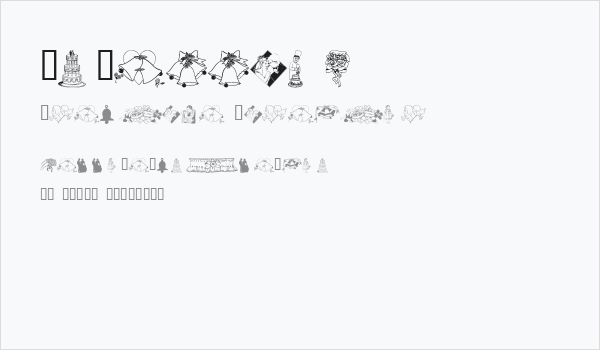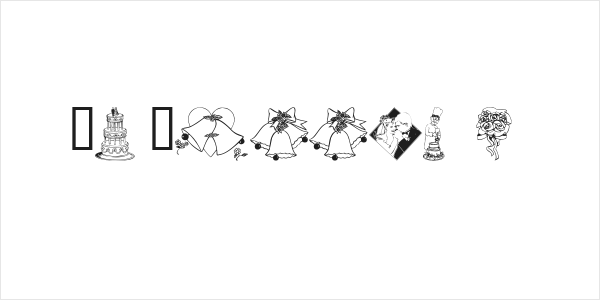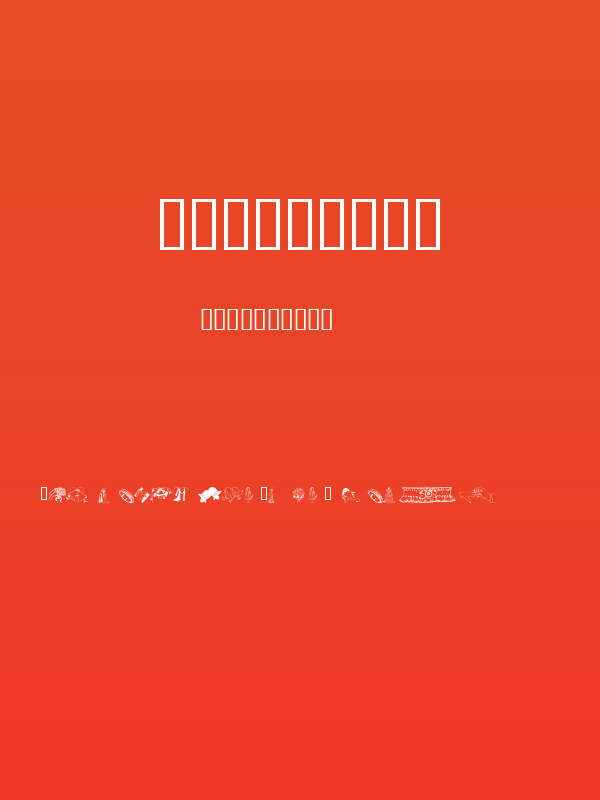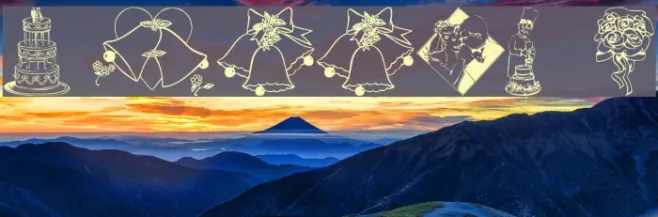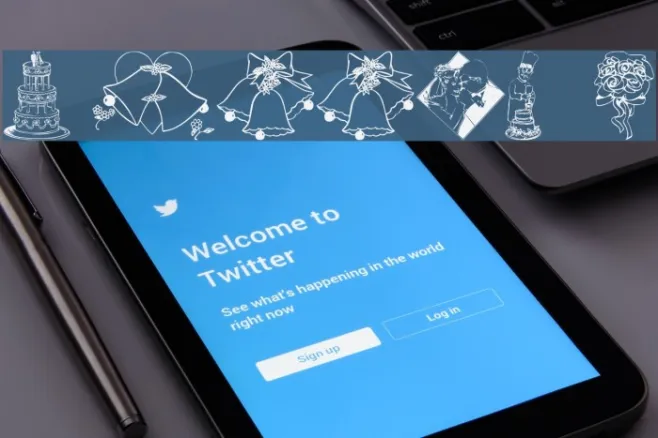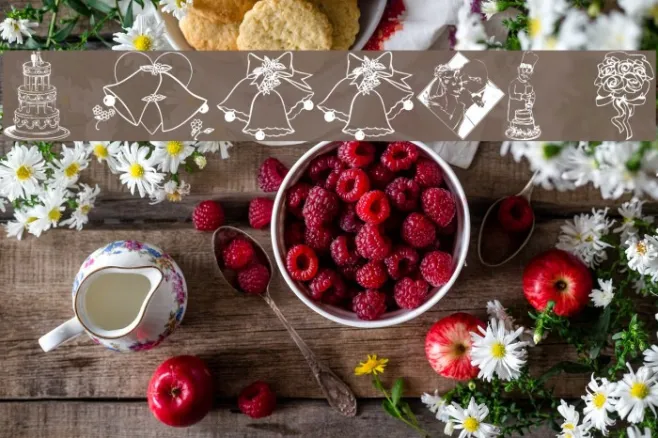
wmwedding Font
wmwedding Description
A decorative dingbat font featuring various wedding-themed illustrations such as bells, cakes, couples, rings, bouquets, and other related motifs. Each character is represented by a unique wedding icon, rendered in a hand-drawn, detailed black and white style.
| Overall Style | Decorative, Thematic |
| Use Case | Decorative elements, Invitations, Themed graphics |
| Proposed Projects | Wedding invitations, event programs, greeting cards, scrapbooking, decorative headings. |